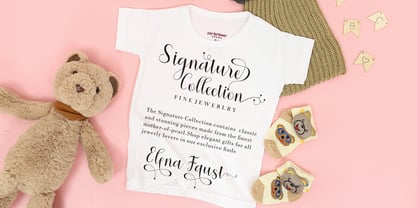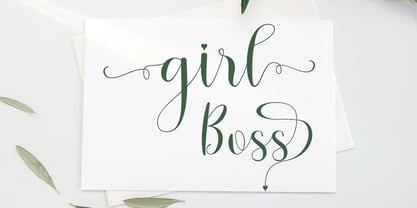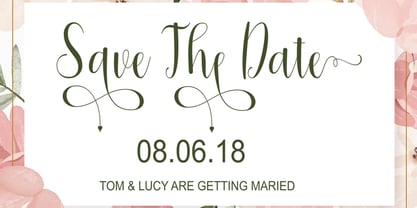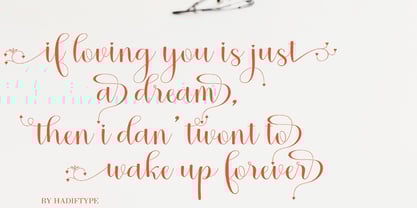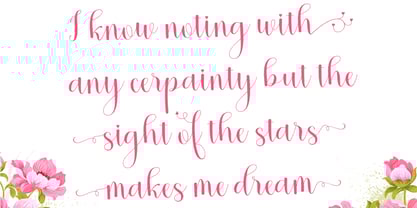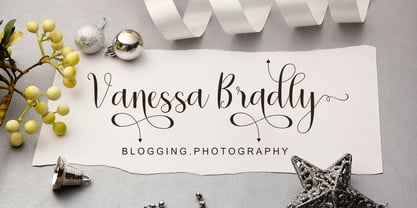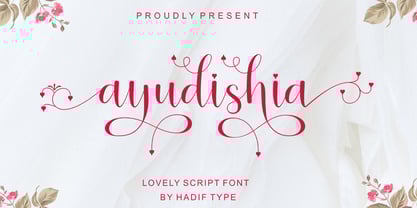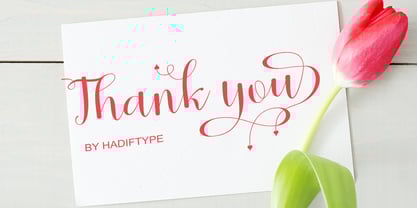
Ayudishia
by Hadiftype
The Ayudishia Font Family was designed by Said Ismail and published by Hadiftype. Ayudishia contains 1 styles. More about this family
Ayudishia Script is an elegant and graceful handwritten font that blends classic beauty with a modern touch. Each letter is carefully crafted with smooth, flowing strokes to create a natural and feminine feel, perfect for adding a personal charm to any design. This font is ideal for: * Branding and logo design * Wedding invitations and greeting cards * Product packaging and labels * Social media posts and inspirational quotes * Posters, stationery, and signature-style designs
Designers: Said Ismail
Foundry: Hadiftype